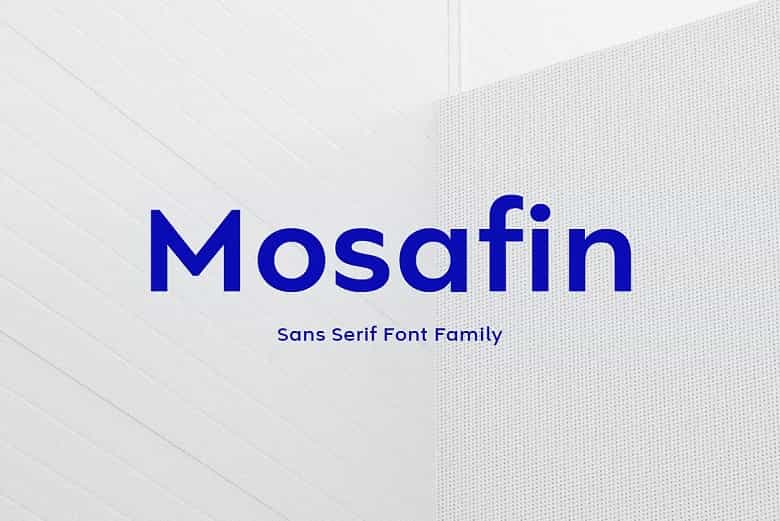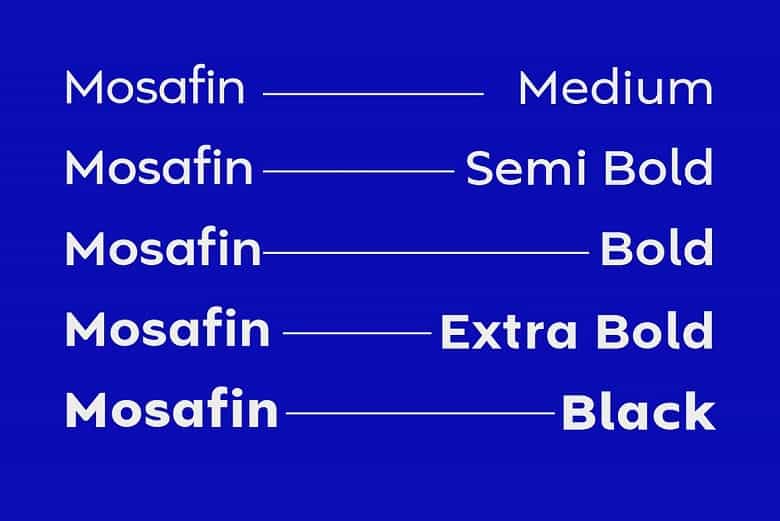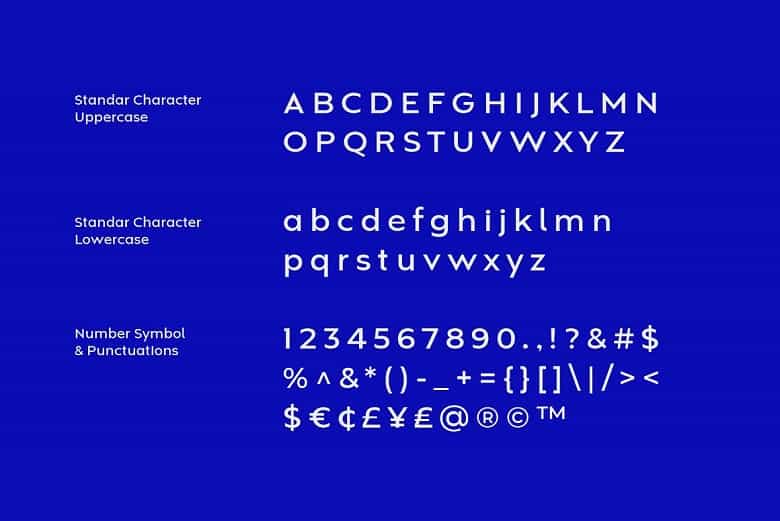
Mosafin is a sans serif font family that is associated with the contemporary as well as elegant designs. This font has a very neat and balanced lettering, and has sharp edges, this makes it quite legible and very versatile for numerous graphic design applications. Constructed with the newest technologies and very good design,